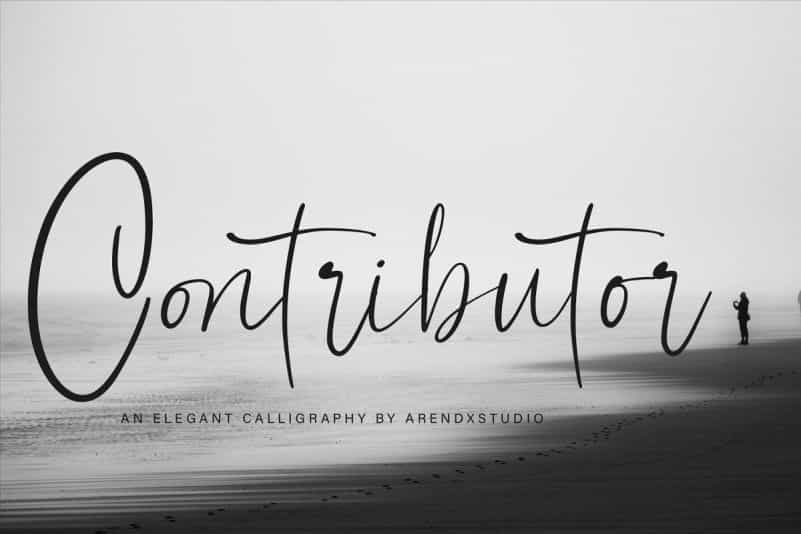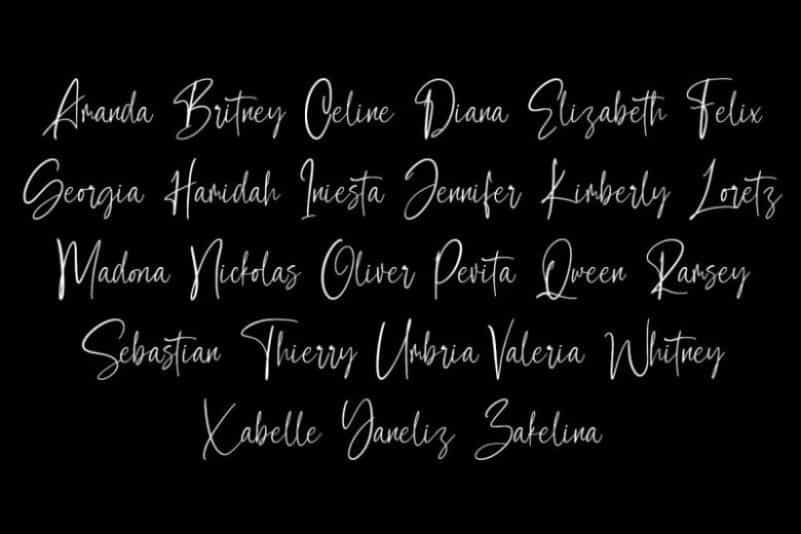
Discover Contributor Calligraphy Font, part of the Calligraphy Handwritten collection—a versatile and unique font perfect for adding a personal touch to your projects. Download it for free and enjoy crafting designs with style, from invitations to social media posts. This font is available exclusively for personal use, giving you the freedom to create without limits. Unlock your creativity with Contributor Calligraphy Font today!
Contributor is perfect for high fashion and other elegant calligraphy projects. This script font is designed particularly for gorgeous and classy handwriting appearance and is also ideal for your distinctive brand. It is elegant in a relaxed and unique manner, which will be excellent for your branding design and will also look marvelous in your wedding invitations and business cards and, of course, for your brand name logo.